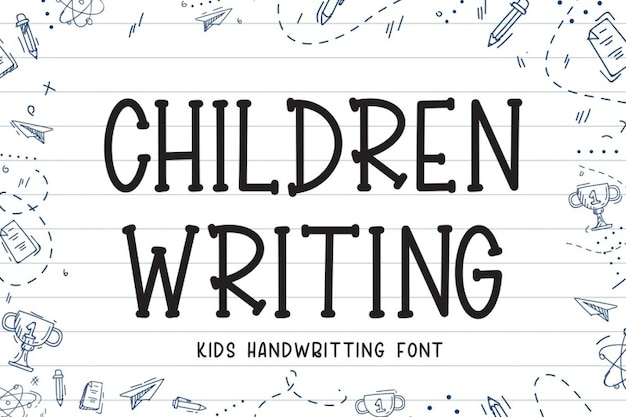
Children Writing
Children Writing Font
Children Writing is a fun font for you to create fantastic invitation cards, flyers, poster and much more. Make good use of this font to boost your projects!